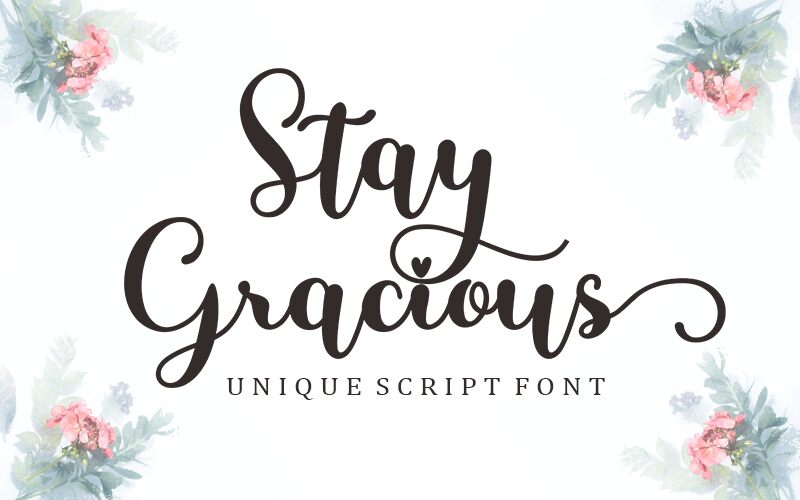
Stay Gracious, a captivating calligraphy font by Bosstype Studio, exudes elegance and sophistication.
Its graceful curves and flowing strokes make it ideal for wedding invitations, luxurious branding projects, and refined stationery designs. This font's versatility shines through in its wide range of weights - from a delicate light font for delicate feminine projects to a bold font that demands attention on impactful headlines. Stay Gracious adds an air of grace to any project, whether it's a high-end fashion magazine or an exquisite restaurant menu.
Let your creativity flourish with this stunning calligraphy typeface.
Features : Lowercase Beginning & Ending Swashes & Ligatures.